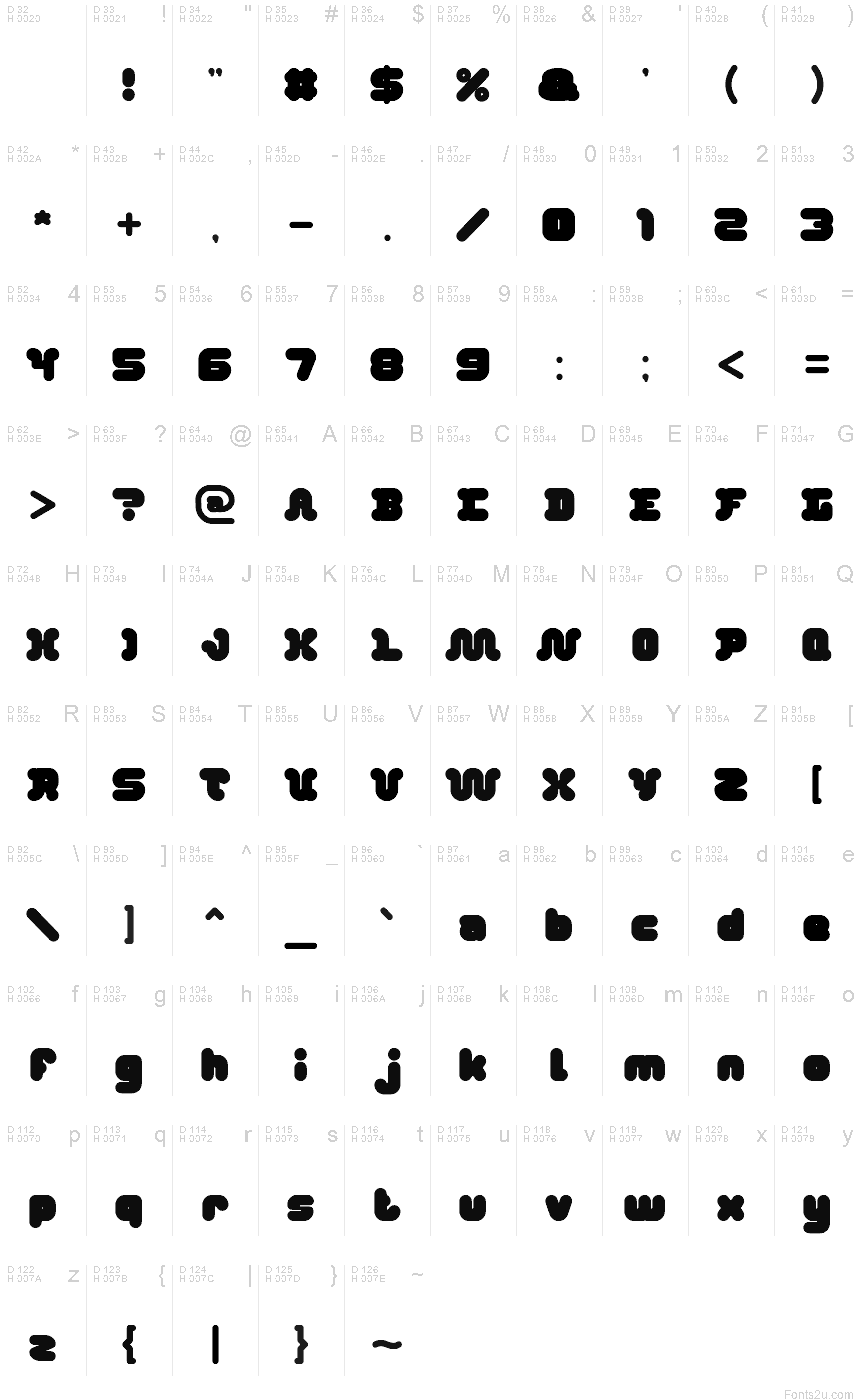
Day Dreamer by Weknow is a free novelty display font with oversized, bulbous letters and a distinctly soft, rounded silhouette. Its swollen strokes press closely together around tiny openings, and the recurring rounded caps give the alphabet a playful, almost inflatable look reminiscent of 1970s bubble lettering.
Dreamlike pop imagery suits music posters, festival merchandise, and candy packaging. In children's publishing, the same cloud, balloon, and blob-like shapes can connect directly with cheerful illustrations, letting the lettering become part of the pictured world rather than serving as an ordinary caption.